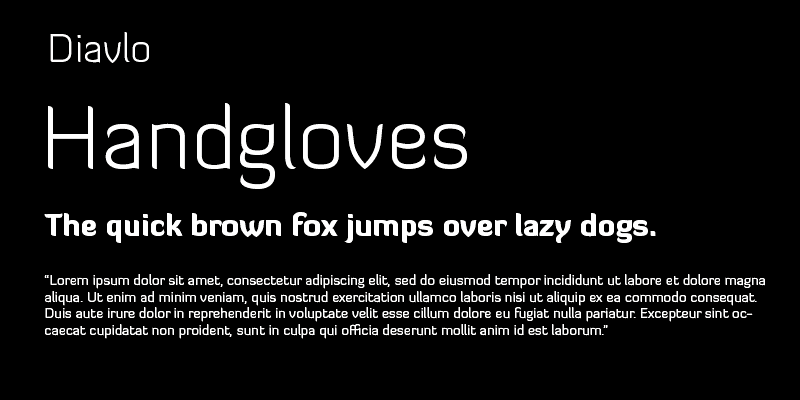
Diavlo is a sharp and edgy display font family of 5 weights with lots of character. The devil is in the details, no pun intended.
Jos Buivenga lives and works in Arnhem. He started designing type in 1994 and started his exljbris Font Foundry ten years later. He is most known for his Museo font family and also for the way he markets his typefaces.